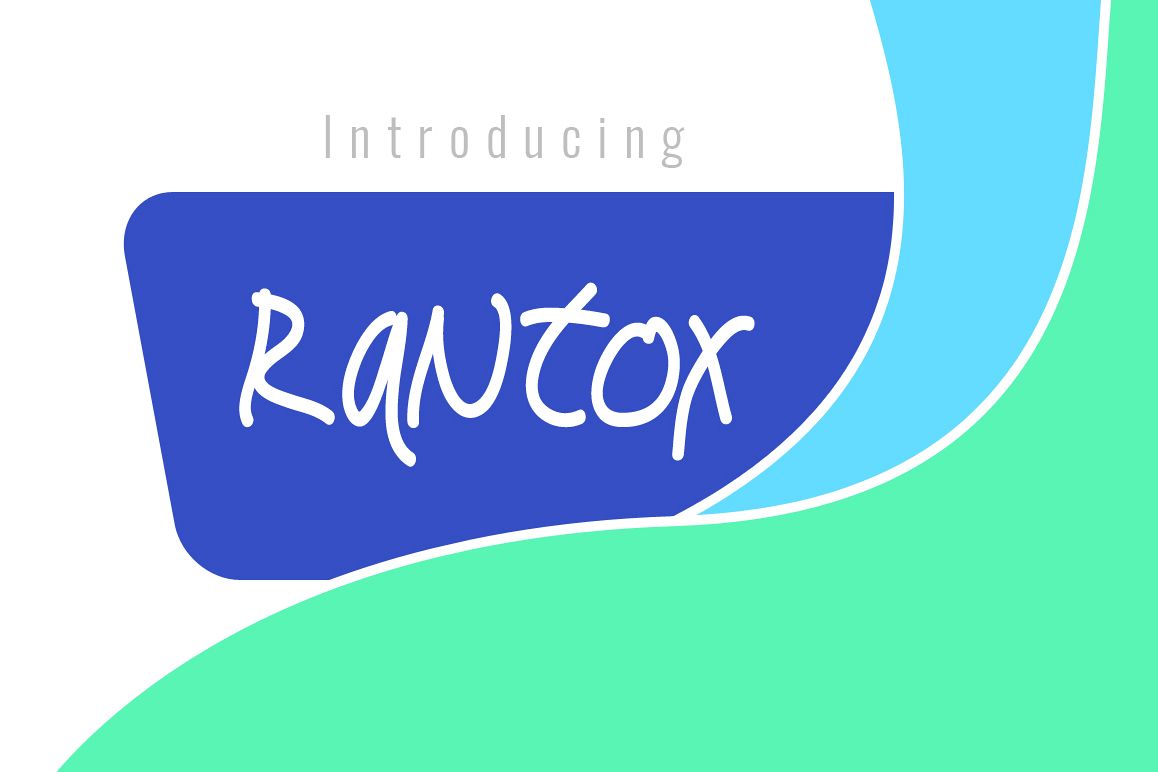
Introducing Rantox!Rantox is a brand new font. I hope you like it. Very suitable for logos, t-shirts, print design, website headers, photo frames, flyers, album covers, posters, image sliders and much more.What's Included: